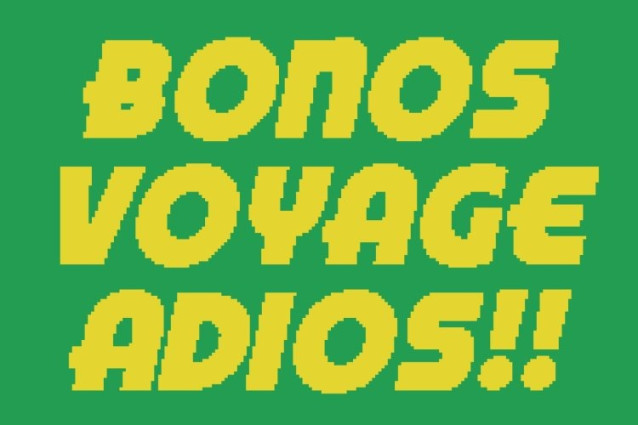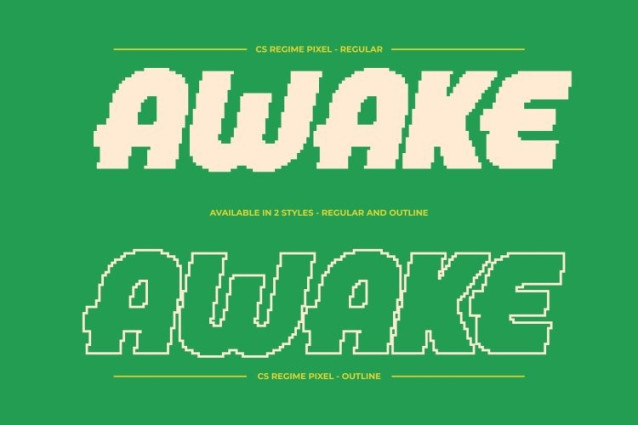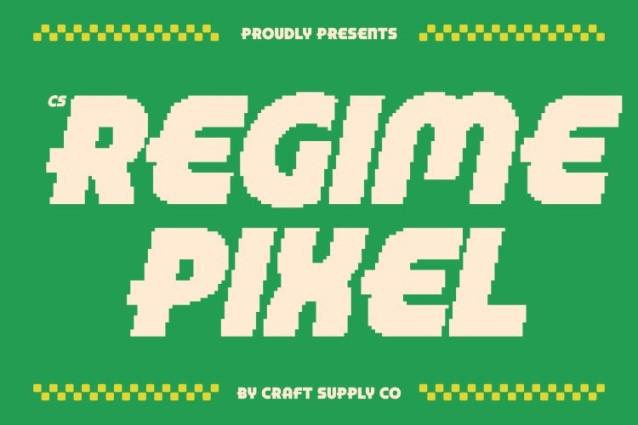
CS Regime Pixel Font
CS Regime Pixel Font – This is a bold display font that fuses Bauhaus-inspired geometry with a crisp pixel-based construction. Rooted in classic modernist principles, it embraces clarity, structure, and function while introducing a retro-digital edge. The result is a typeface that feels strong, iconic, and visually engaging perfect for contemporary creative projects with a structured aesthetic.
Geometric Shapes with Modular Pixel Structure
Built from clean geometric forms such as circles, straight lines, and simplified curves, features a modular system translated into a rigid pixel grid. This bitmap structure reinforces its bold presence, giving each letter a blocky, precise, and rhythmic appearance. The combination of geometry and pixels creates a cohesive visual language that feels playful yet disciplined.
Retro Bauhaus Spirit with Modern Digital Expression
This font channels the spirit of early modernist and Bauhaus design while incorporating a retro 8-bit impression inspired by old digital technology. Its pixel construction adds nostalgic character, while the bold weight and clean geometry keep the font modern, relevant, and impactful.
Versatile for Posters, Branding, and Editorial Layouts
Designed for high-impact use, performs exceptionally well in posters, branding systems, editorial layouts, logos, and creative campaigns. Its bold geometric forms ensure strong visibility, while the modular pixel style adds sophistication and visual interest making it a powerful typographic choice for expressive, design-forward projects.